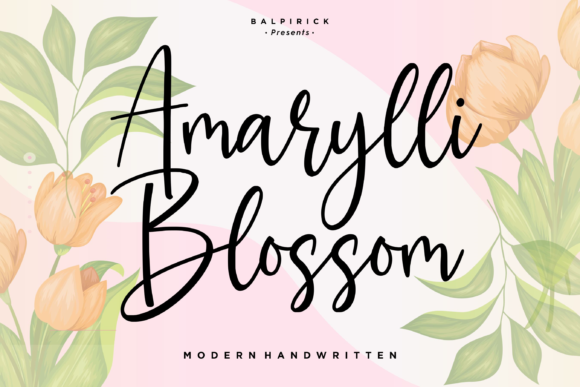
The Sweet Charm of Amarylli Blossom Font
I’ll never forget the moment I stumbled upon Amarylli Blossom Font while working on a wedding invitation project. I had tried countless fonts, but none seemed to capture the whimsical, romantic feel my client was looking for. As soon as I laid eyes on Amarylli Blossom, I knew I had found the one. Its playful, rounded characters and sweet, soft hand-lettered design stole my heart, and I couldn’t wait to share it with my fellow designers and crafty friends.
- ✨ The authentic, hand-crafted feel that adds a touch of warmth to any design
- ✅ The playful rounded characters that make it perfect for creating stunning designs
- 💕 The versatility to use it for various projects, from wedding invitations to social media posts
- 🎉 The ease of use, even for those who are new to hand-lettered fonts
While Amarylli Blossom Font is a beautiful addition to any design, there are a few things to keep in mind:
- ⚠️ Some characters may appear a bit inconsistent in size, which can add to its charm but may require adjustments for certain projects
- 🤔 Limited availability of stylistic alternates, which may limit its use for more complex designs
The Story Behind Amarylli Blossom Font
Amarylli Blossom Font was designed with love and care by a talented font designer who wanted to create a font that would capture the essence of sweet, soft hand-lettered designs. The font’s name, Amarylli, is inspired by the beautiful amaryllis flower, which symbolizes love, beauty, and elegance.
Q: What is Amarylli Blossom Font?
Amarylli Blossom Font is a sweet, soft hand-lettered font designed for creating stunning designs, such as wedding invitations, beautiful stationary art, eye-catching social media posts, and cute greeting cards.